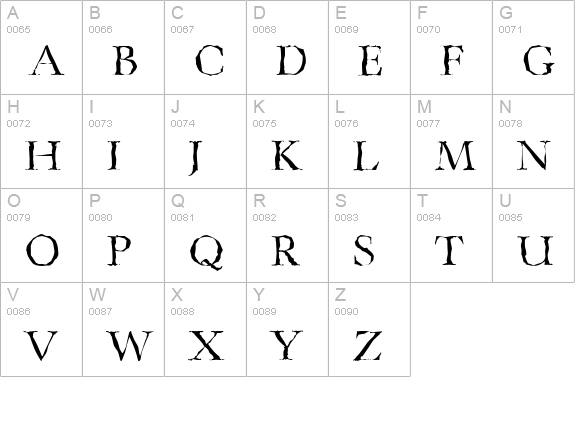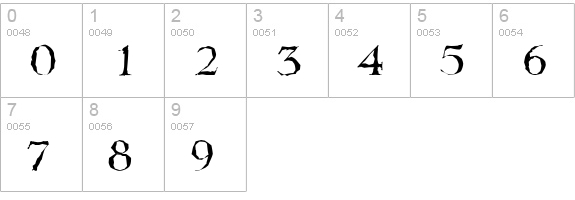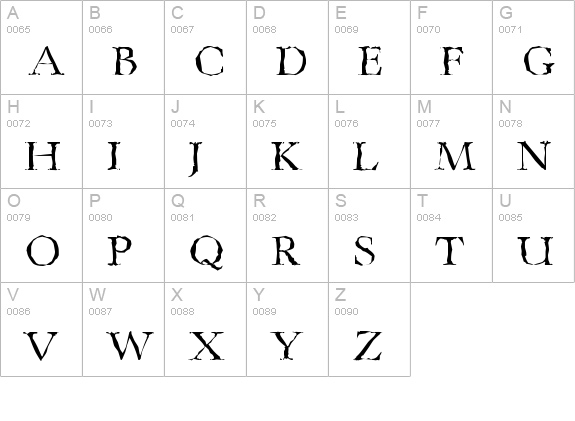
LingwoodRandom-Regular Font Details
LingwoodRandom-Regular is the standard, neutral variant in the LingwoodRandom typeface family \xE2\x80\x94 well suited to general body text, paragraphs, and standard typographic work.
LingwoodRandom-Regular font is a captivating and versatile typeface that adds a touch of whimsy and elegance to any design project. The irregular and hand-drawn strokes give this font a unique and artistic appeal, perfect for creating eye-catching headlines, logos, and branding materials. With its playful yet sophisticated look, LingwoodRandom-Regular font is sure to stand out and make a statement. Its charming irregularities and organic feel make it a great choice for projects that require a more personal and handcrafted touch. Best of all, LingwoodRandom-Regular font is free to download at FontsMarket.com, making it accessible to designers and creatives looking to add a touch of creativity to their work without breaking the bank. Don't miss out on this stylish and versatile font that is sure to elevate your designs to the next level.